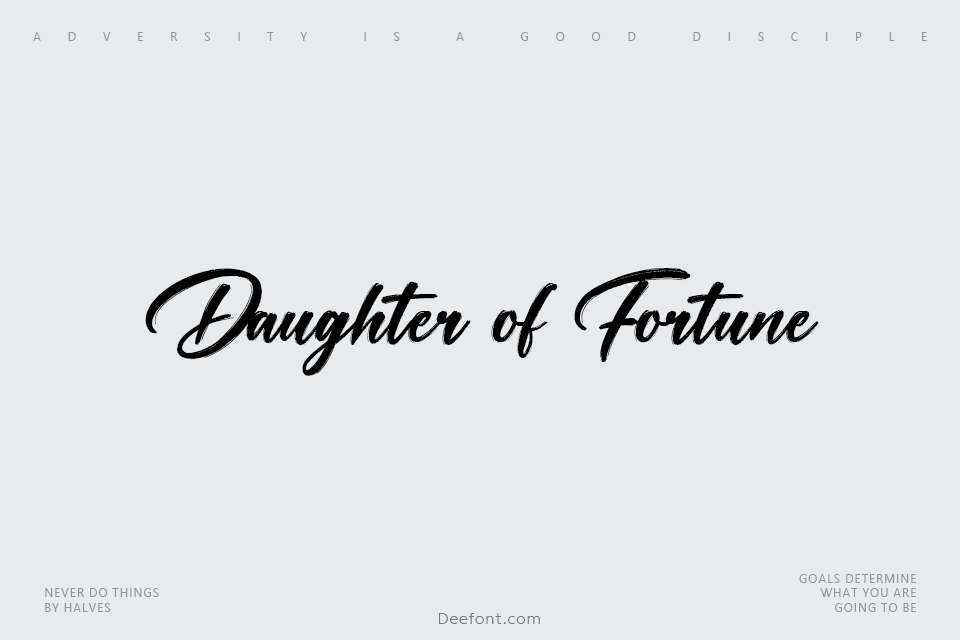
Daughter of Fortune Font
Daughter of Fortune is an elegant and flowing brush script font designed with artistic flourishes and calligraphic elements. This charming typeface features dynamic, hand-lettered characteristics that evoke a sense of sophistication and creativity. Perfect for branding, posters, greeting cards, fashion graphics, and display typography, it brings warmth and elegance to any creative design project. With its distinctive brush strokes and expressive letterforms, this font adds a personal, refined touch to visual communication and decorative applications.